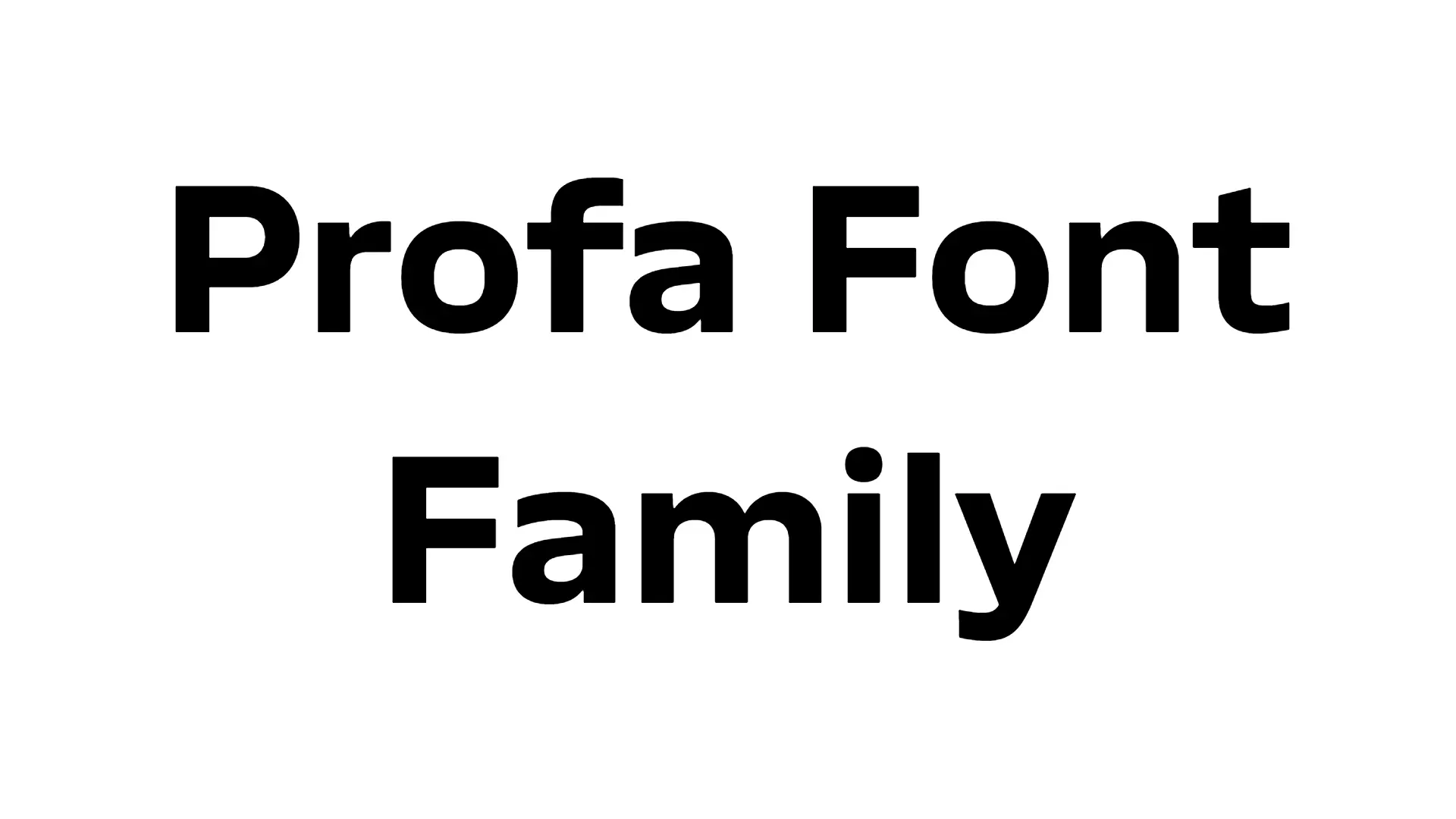
Profa Font Family
Profa Font Family is a sans serif font made by Eko Bimantara, Gilar Pratama. Simple, open letter shapes keep it easy to read at almost any size, from app buttons to big headlines. The free download includes 12 styles, and you can try every one of them with your own text in the preview above.
- Designer: Eko Bimantara, Gilar Pratama
- Font styles: 12 (Regular, Thin Expanded, Thin Condensed, Thin, Light Expanded, Light Condensed, Medium Expanded, Medium Condensed, Medium, Semi Bold Expanded, Semi Bold Condensed and Semi Bold)
- Glyphs: 417 in the Regular style
What You Can Type With Profa Font Family
You get every letter from A to Z in both cases and all the numbers from 0 to 9, which means Profa Font Family can handle full sentences, dates and prices. Common punctuation such as &, !, ? and @ is included as well. It also has the accented letters you need for Spanish, French, German, Portuguese and Italian.
Where Profa Font Family Works Best
Think of Profa Font Family for websites, app screens and clean logos. It works for headings and body text alike. If the download has several weights, use a heavier one for titles and a lighter one for paragraphs. Because the family has more than one style, you can mix them in a single design for headings, subheadings and highlights.
Does Profa Font Family support accented letters?
Yes. Profa Font Family includes the accented letters needed for Spanish, French, German, Portuguese and Italian, so it works for more than just English.